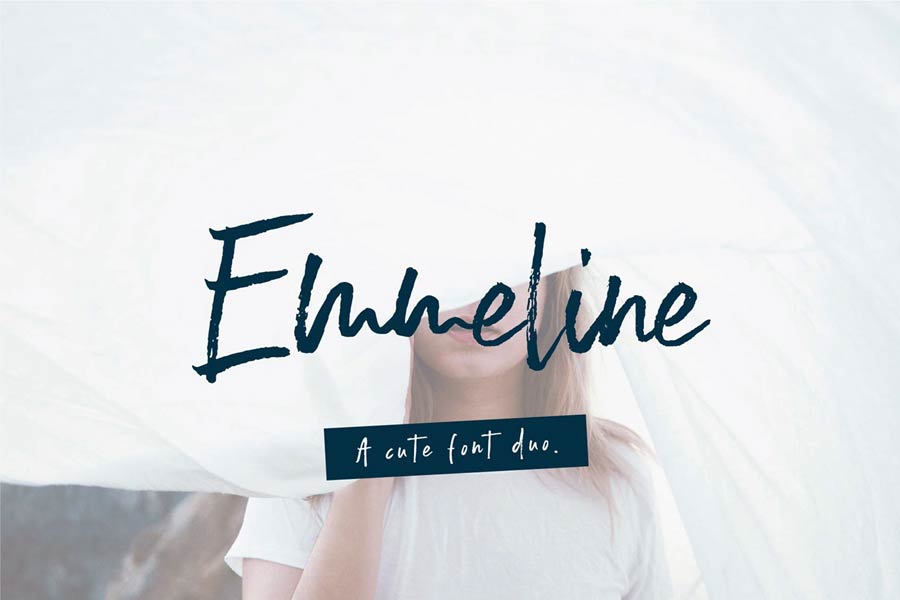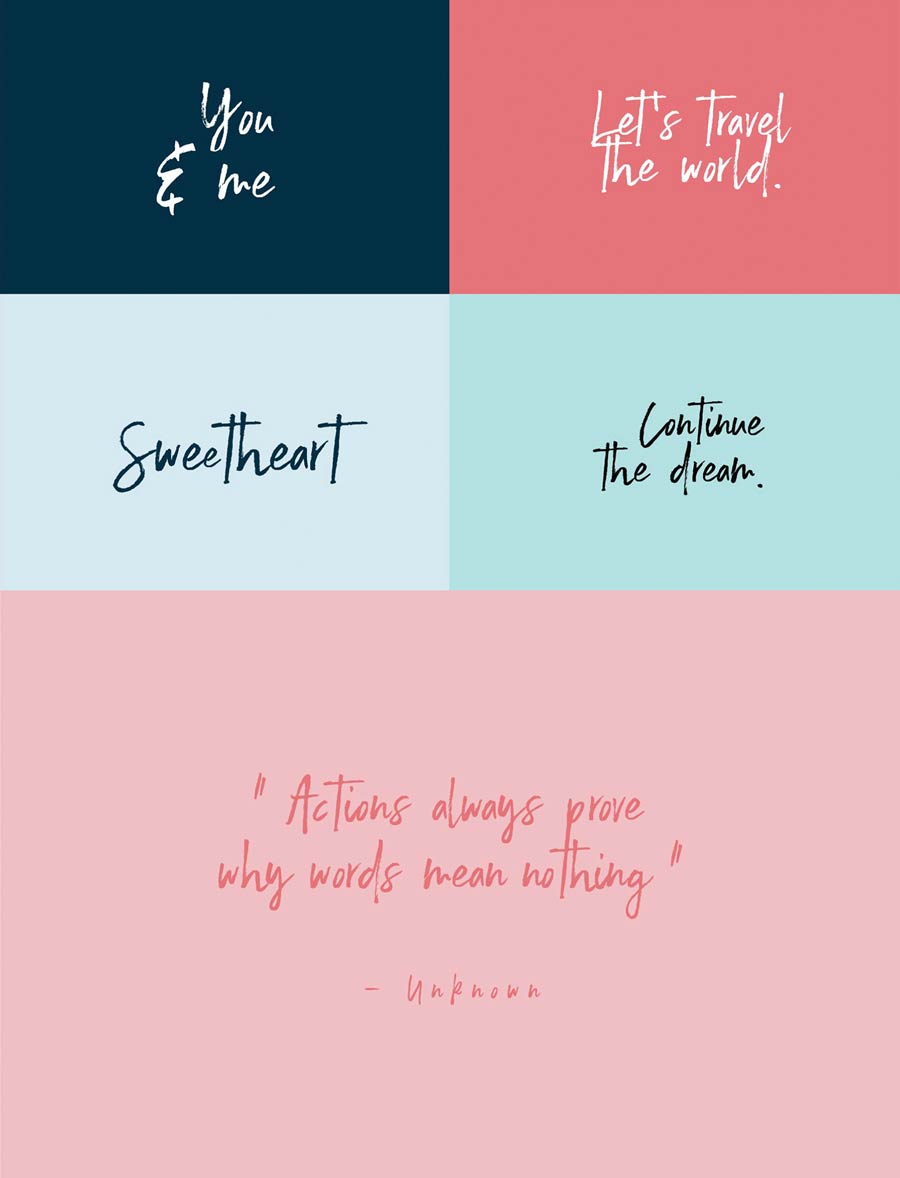
Emmeline is a sweet handwritten brush font free to download. Designed by Sinikka Li, it comes with 260 characters, and packs with an extra alternate set of characters accessible via graphic softwares’ OpenType capabilities.
Emmeline hand brush style emits the chic, stylish and also positive energy which makes this font an outstanding choice for logos, posters, invitation cards and more.